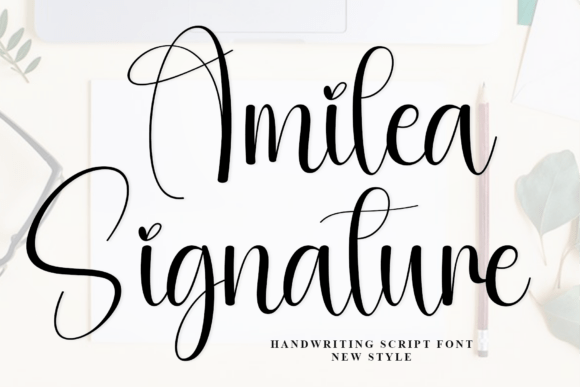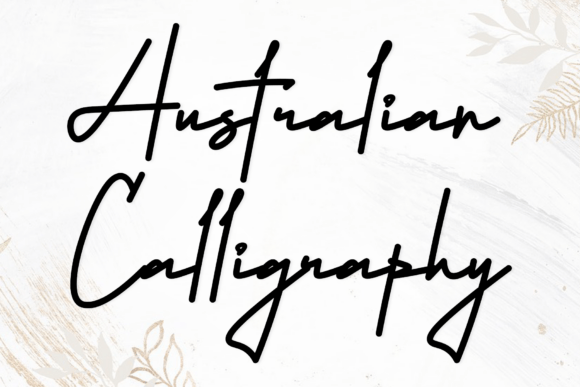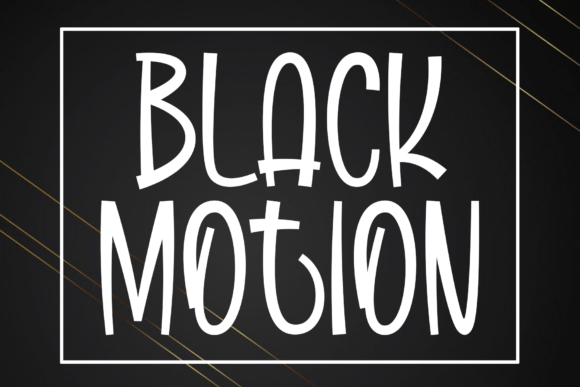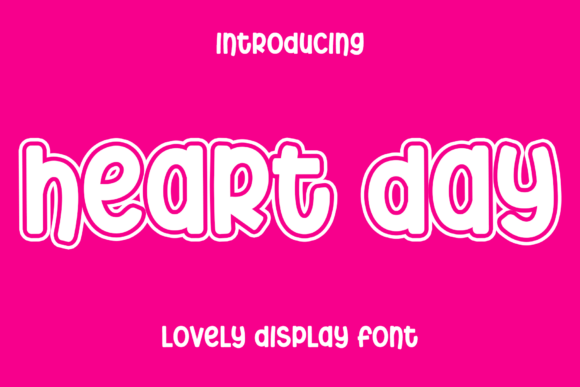
15 Best New Script Fonts for Signatures and Branding
Script fonts are the highest-selling category on every marketplace, which means new releases arrive constantly and most of them describe themselves in identical language. Elegant, fluid, sophisticated, modern. These fifteen recent script fonts are covered with attention to the details that actually differ between them: baseline bounce, stroke weight, capital design, and whether the font survives being embroidered or foil stamped.
What Actually Differs Between Script Fonts
Baseline bounce. Real handwriting does not sit flat. Letters rise and fall slightly, and a script holding every character at the same height reads as typed no matter how decorative the forms are. This is the most reliable quality indicator.
Connection quality. Where letters join is where cheap scripts give themselves away. Good connections vary in angle and thickness depending on which letters meet. Bad ones use one join everywhere, producing a visible repeating pattern.
Capital design. Script lowercase varies less between designers than capitals do, and capitals are what a customer sees first in a name. When comparing similar releases, compare the capitals rather than the alphabet.
Stroke weight. This determines whether the font is usable in production. Bold scripts survive embroidery, vinyl and foil. Delicate ones survive none of them without being redrawn.
On names. Two fonts in this batch carry names describing something they are not. Marketplace font names are chosen for search visibility rather than for accuracy, so judge from the specimen image and ignore the title entirely.
15 New Script Fonts
Heart Day font sample
Elegant Signature
1. Heart Day
Heart Day is an elegant fluid handwritten script built around modern sophistication. Fluid is the operative word: the strokes maintain momentum through the connections rather than pausing at each junction.
That continuity is what separates a convincing signature script from one that reads as assembled letters. Real handwriting carries momentum, and fonts that fail to reproduce it show a visible stutter at every join.
My take: Look for momentum through the connections. That is the single detail that separates good signature scripts from ordinary ones.
Amilea font sample
Wedding Script
2. Amilea
Amilea is a stylish elegant script positioned for wedding invitations and thank-you cards. Wedding stationery has a specific technical requirement most script fonts ignore.
Cards get printed on textured cotton stock, foil stamped, or letterpressed, and all three destroy fine hairlines. Before committing a delicate script to a wedding suite, find out how it is being reproduced, because the answer eliminates most of the options.
My take: Decide the printing method before the font. Foil and letterpress rule out most delicate scripts before you start.
Black Motion font sample
Fluid Modern
3. Black Motion
Black Motion is an elegant fluid handwritten script sharing a family resemblance with Heart Day. When several new releases describe themselves identically, the differences are in the details rather than the concept.
Compare the capitals specifically. Script lowercase varies less between designers than script capitals do, and the capital is what a customer sees first in a name or a logo.
My take: When new scripts describe themselves identically, compare the capitals. That is where designers actually differ.
Smooth Chocolate font sample
Sophisticated Script
4. Smooth Chocolate
Smooth Chocolate is another elegant fluid script in the same release wave. The volume of near-identical script launches is worth understanding as a buyer.
Script is the highest-selling font category, which draws designers to it and produces a crowded market of competent but similar releases. That is good news for price and bad news for differentiation, so if your brand needs to look distinct, script may be the wrong category entirely.
My take: Script is the most crowded font category. If differentiation matters more than elegance, consider a serif instead.
Cavelle font sample
Bold Script
5. Cavelle
Cavelle is a bold stylish script with smooth flowing letterforms and confident handwriting. Bold scripts are considerably rarer than delicate ones and considerably more useful in production.
Weight is the single factor that determines whether a script survives embroidery, vinyl cutting, foil stamping and small-scale printing. A bold script does all four. A delicate one does none without redrawing.
My take: The most production-proof script in this batch. Bold weight is what lets a script survive manufacturing.
Australian font sample
Can I use script fonts in all capitals?
No. Script capitals are designed as initial letters, not as a full alphabet. Setting a word in script caps removes every connecting stroke and looks broken.
Are new script fonts better than established ones?
Usually cheaper at launch and less likely to appear on a competitor’s packaging, but established scripts have proven spacing and broader character coverage. For a logo, distinctiveness favours new releases.